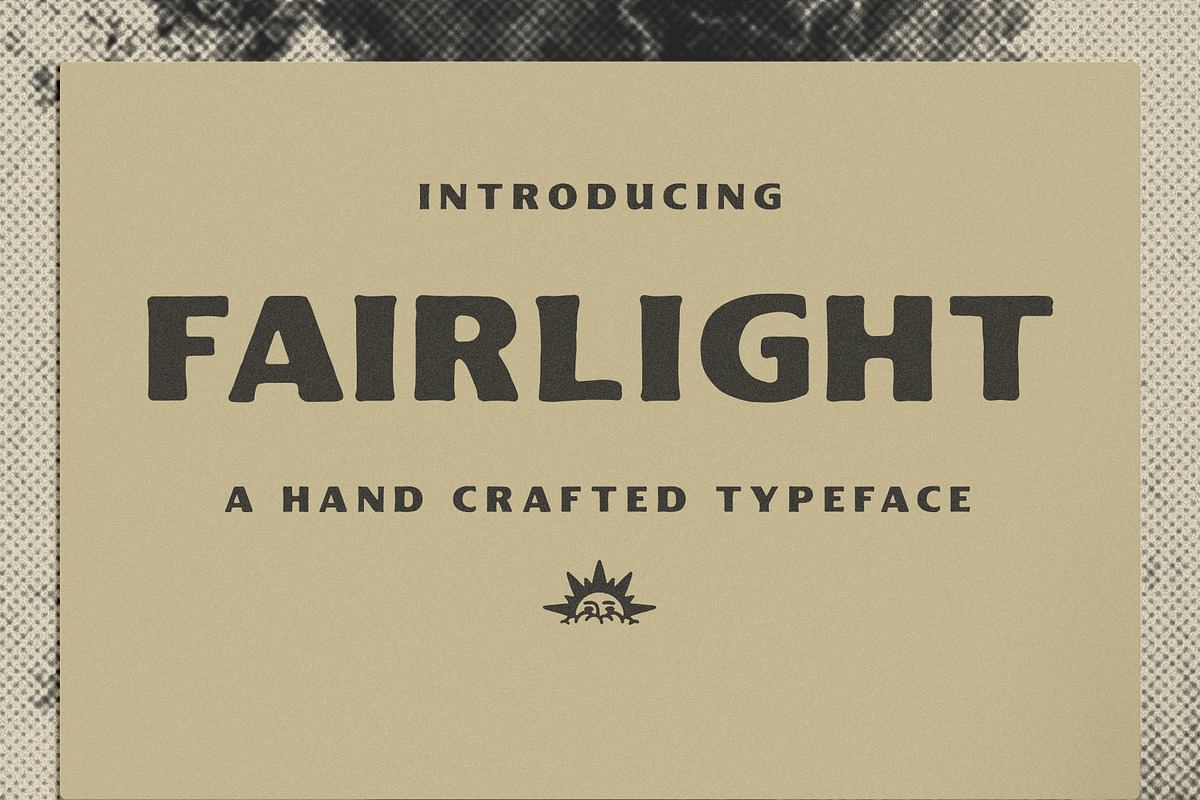
Fairlight Hand Crafted Font Free Download is a warm, rustic, and charming typeface that captures the essence of hand-drawn lettering. With slightly rough edges and an organic flow, Fairlight is perfect for farmhouse signs, DIY projects, wedding stationery, logo design, packaging, and cozy lifestyle branding.
Designed to look handcrafted and authentic, Fairlight Free Download brings a personal and approachable touch to both digital and print projects. It’s ideal for creatives looking to add a human, artisanal feel to their typography.